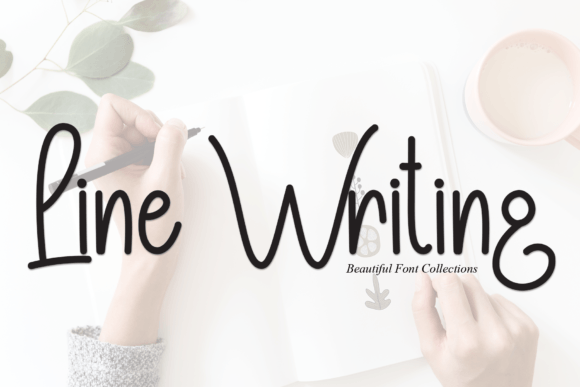
Journey into a realm of artistic expression, where letters dance with elegance and charm. Discover Line Writing Font, a script font that will captivate your senses and leave you spellbound. Created by the visionary William Jhody, this font embodies the essence of simplicity and creativity, offering a delightful touch to your designs.
Line Writing Font is a symphony of flowing strokes and graceful curves that will add a personal touch to your projects. Its friendly and inviting appearance makes it the perfect choice for wedding invitations, cards, and any design that seeks a playful and lighthearted ambiance. Let your imagination soar as you explore the endless possibilities of this enchanting font.
With Line Writing Font, simplicity is not a limitation but an invitation to explore the extraordinary. Its delicate lines and understated charm will elevate your designs, adding a touch of elegance and sophistication. Whether you're a seasoned designer or just starting your creative journey, this font will inspire you to craft designs that resonate with your audience.
Immerse yourself in the beauty of Line Writing Font, a creation that will transform your designs into works of art. Its versatility knows no bounds, adapting effortlessly to a myriad of projects. Let your creativity flourish as you discover the countless ways to incorporate this font into your designs, from whimsical invitations to eye-catching social media posts.